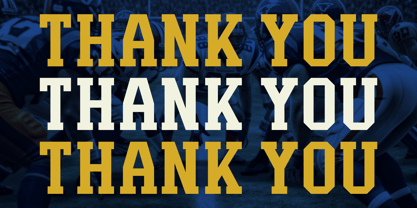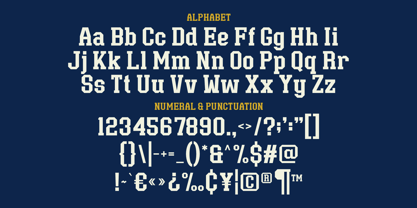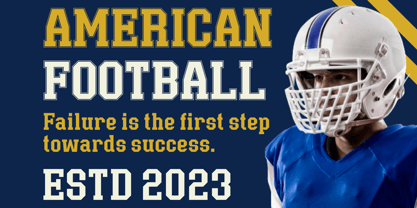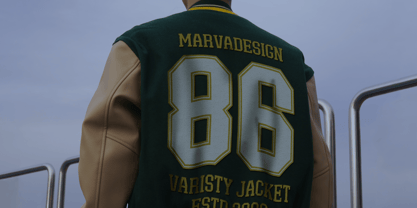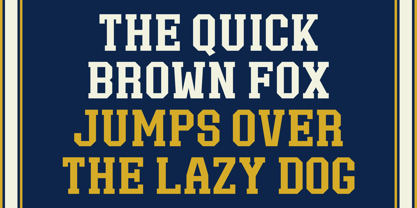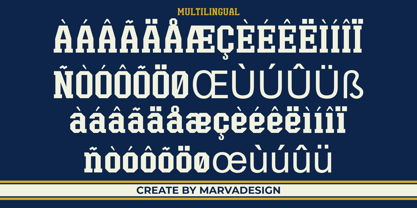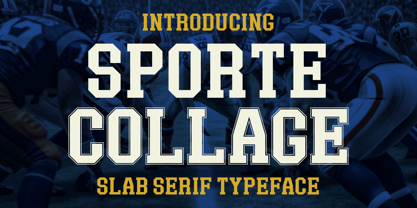
Sporte College
The Sporte College Font Family was designed by Febrie Setiawan and published by Marvadesign. Sporte College contains 2 styles and family package options. More about this family
Introducing Sporte College is a bold and structured slab serif typeface, designed to convey strength, confidence, and a distinctly collegiate or athletic aesthetic. The typeface features thick, blocky letterforms with strong serifs, giving it a robust and authoritative presence. Its geometric structure ensures excellent readability, making it ideal for sports branding, varsity-themed apparel, and bold headline typography.
One of the standout characteristics of this font is its well-balanced proportions and clean edges, which enhance its versatility across various design applications. The capitalized lettering maintains a uniform height, reinforcing its bold and impactful nature. Additionally, the font includes a full set of uppercase and lowercase letters, numerals, and an extensive range of punctuation marks and special symbols, making it highly functional for diverse typographic needs.
This slab serif typeface is perfect for use in sports jerseys, university merchandise, posters, and promotional materials where a powerful and dynamic look is required. Its classic yet modern appeal ensures that it remains timeless while effectively capturing the essence of team spirit and competitive